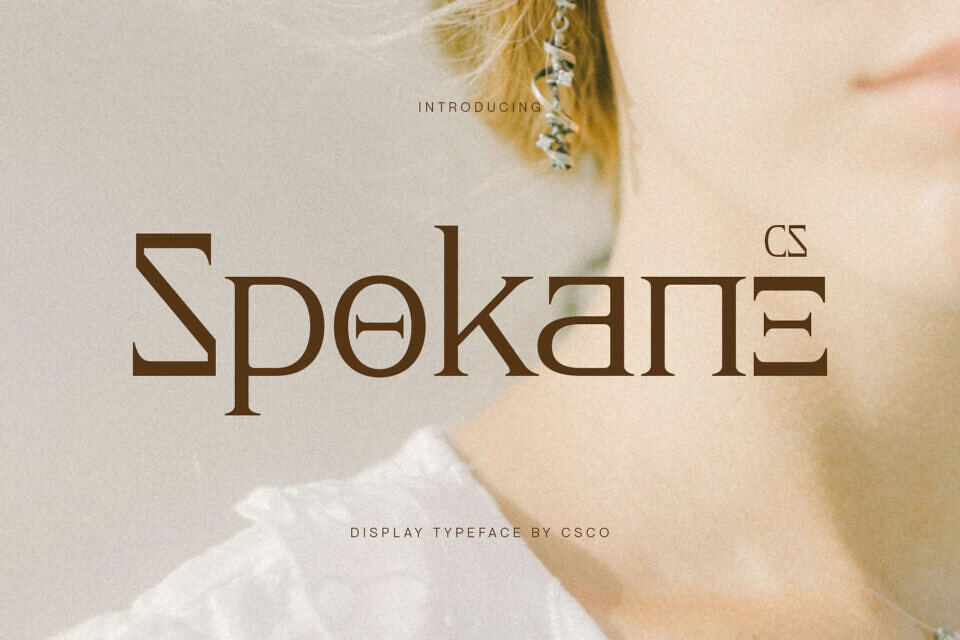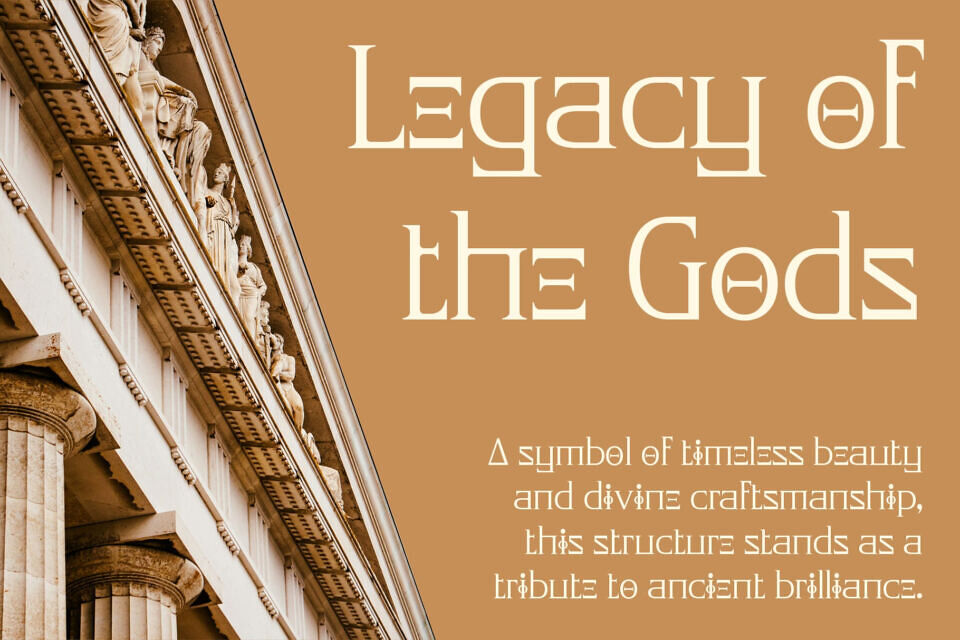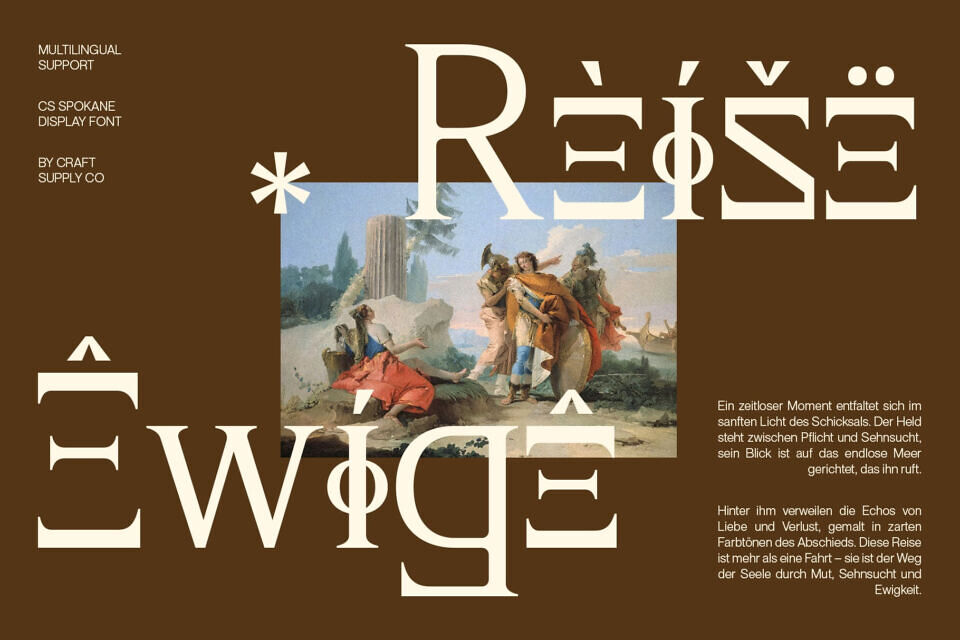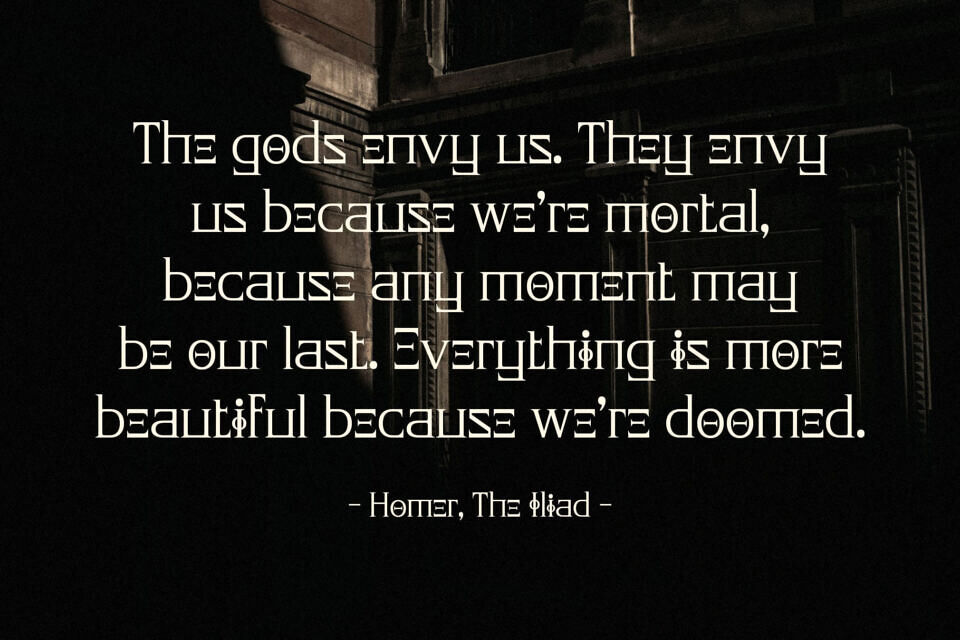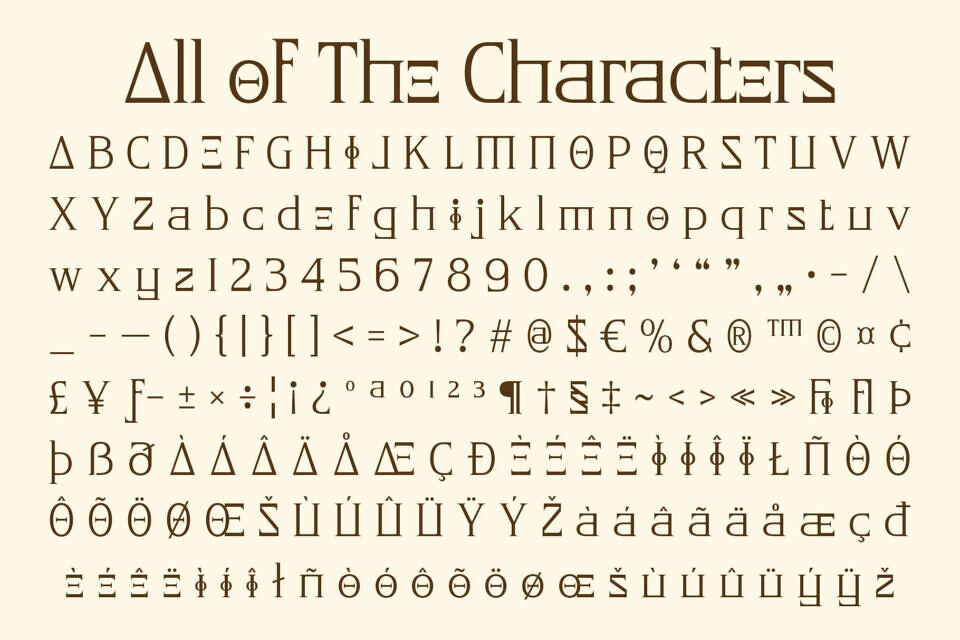
Cs Spokane Font
Spokane is a classic serif display font inspired by the refined beauty of ancient Greek design. Its sculpted serifs and elegant proportions evoke the sophistication of classical architecture, blending historical depth with modern sensibility. Each letter embodies a sense of balance and poise, making it ideal for projects that value tradition with a contemporary touch.
Drawing inspiration from Greek inscriptions and timeless typographic forms, this font merges old-world gravitas with clean, modern detailing. The result is a typeface that feels both cultured and current perfect for designers seeking to communicate strength, elegance, and intellectual sophistication.